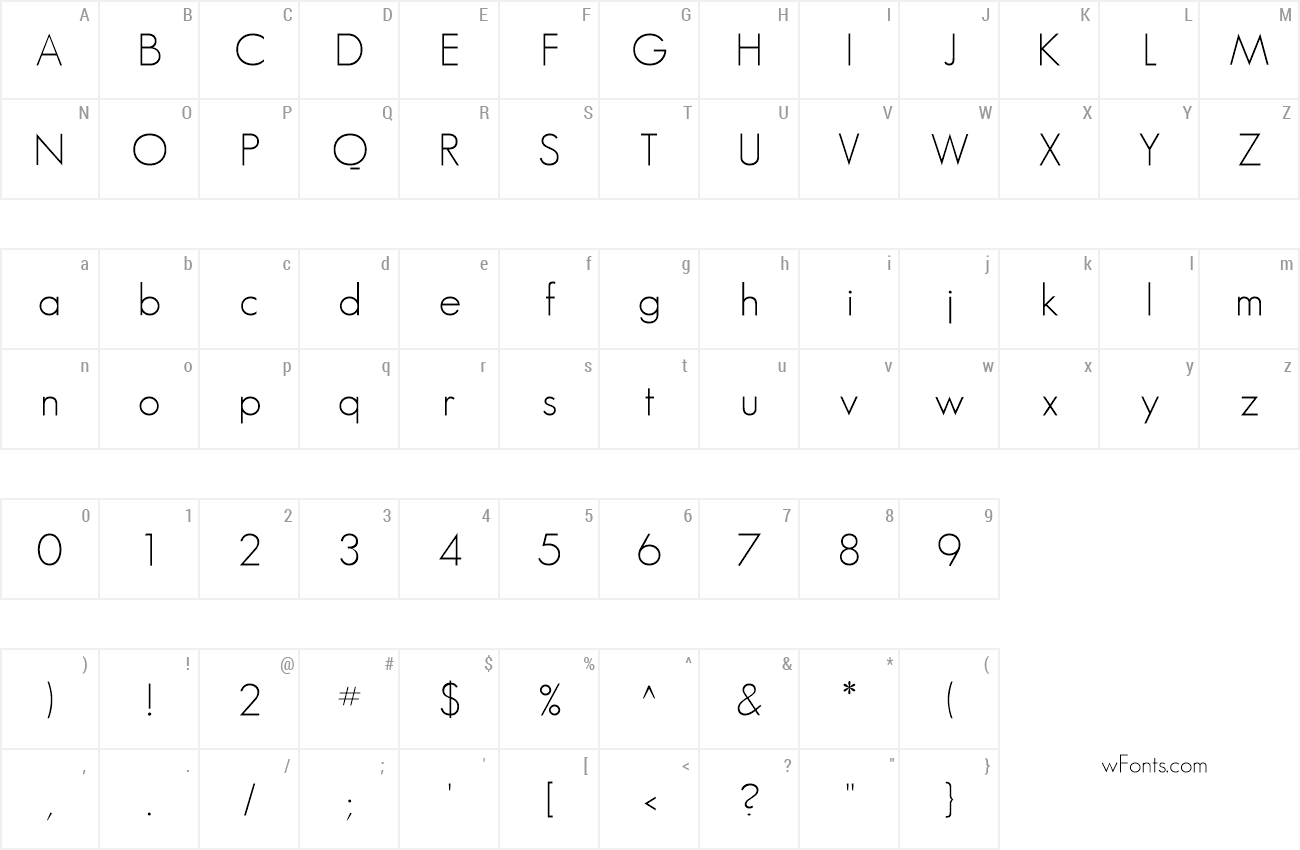
Geo Sans Font Similar
Geo Sans Font Similar. Qualy is a funky logo font design by takuya shinagawa for shina design, released in. Geo sans light is a free font for commercial use created by manfred klein.
3 variation features blunt corners, rather than the sharp corners seen in no. This modern sans serif is a contemporary take on the minimalist design trend. History and characteristics of brandon grotesque.
It’s One Of The Most Common Sans Serifs In Use Today, Thanks To Its Legibility On Digital And Print Platforms Alike.
Leo sans modern geometric typeface. If you recognize the font from the samples posted here don't be shy and help a fellow designer. Geo sans light à € by manfred klein.
Open Sans Is A Clean Sans Serif Typeface Created By Steve Matteson In 2010.
Thrifty is a contemporary sans serif font that's based on technical lines with a twist. The font is suitable for body copy, a perfect replacement for the gotham book font version. Brandon grotesque is a geometric sans serif typeface inspired by the art deco fonts that were produced in the 1920s and.
The Family Is Available In Four Variations:
If you recognize the font from the samples posted here don't be shy and help a fellow designer. This font has 2 styles available (geosans light oblique). Hurme geometric sans 1 & 2 hurme design.